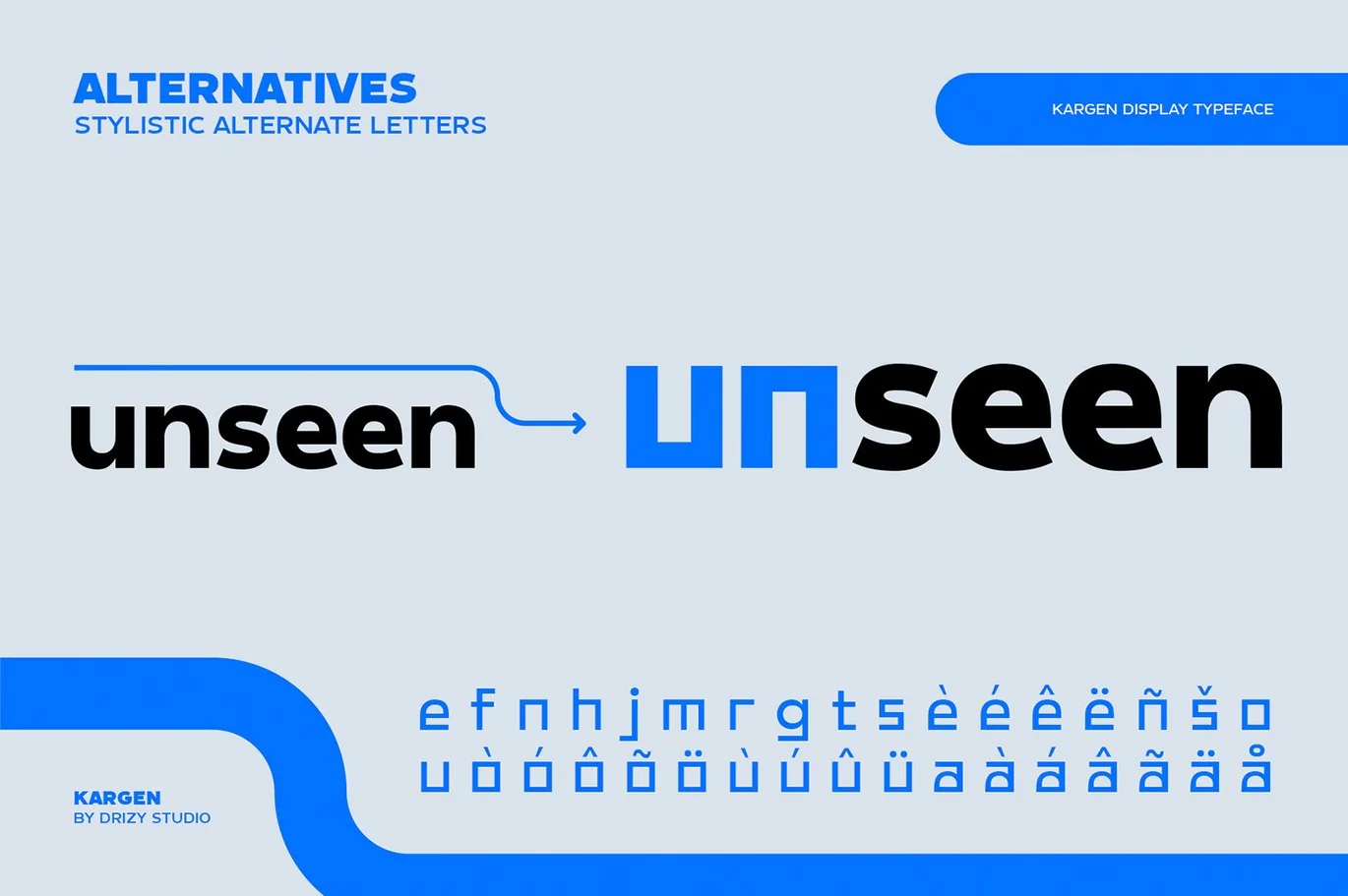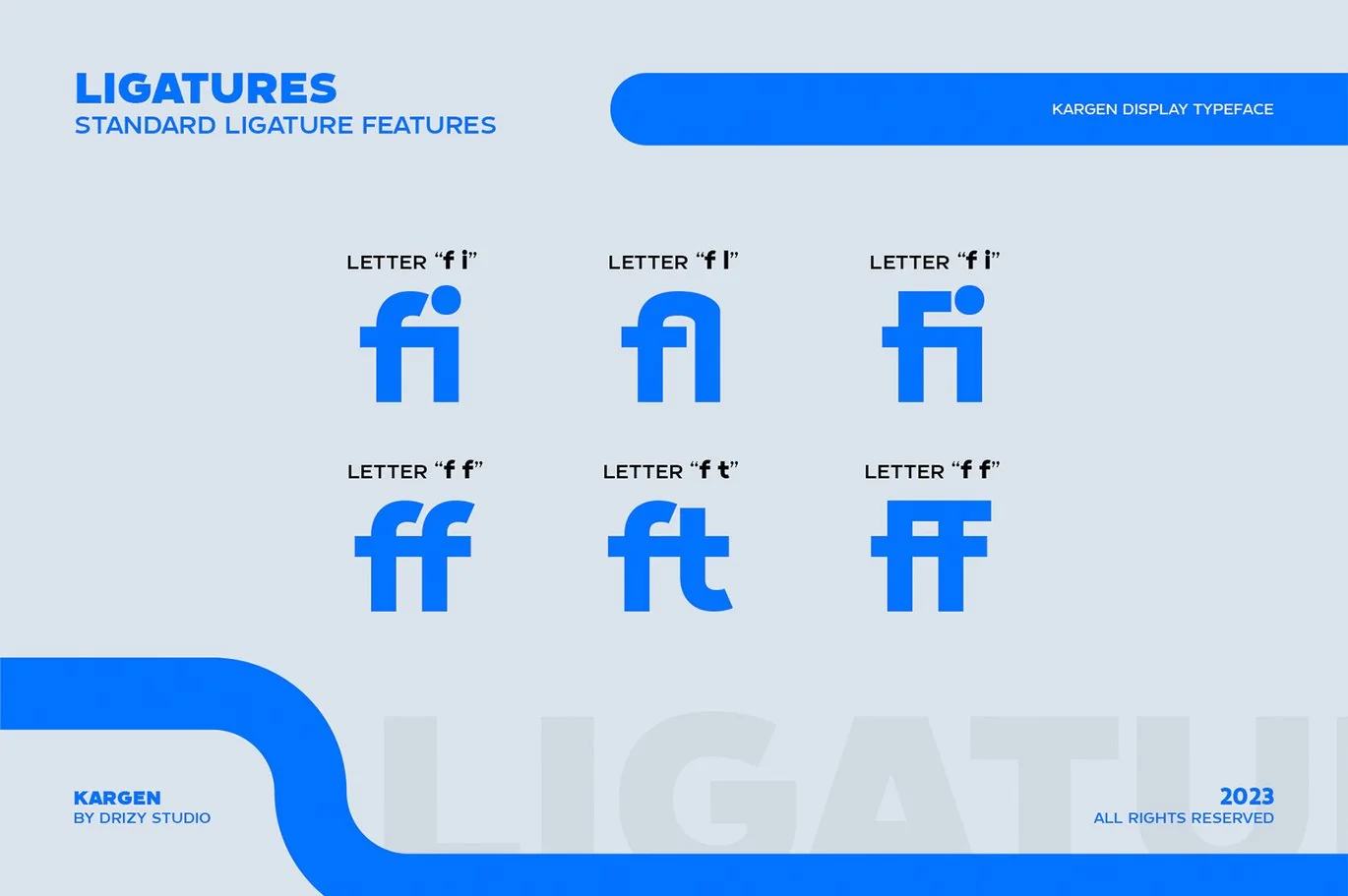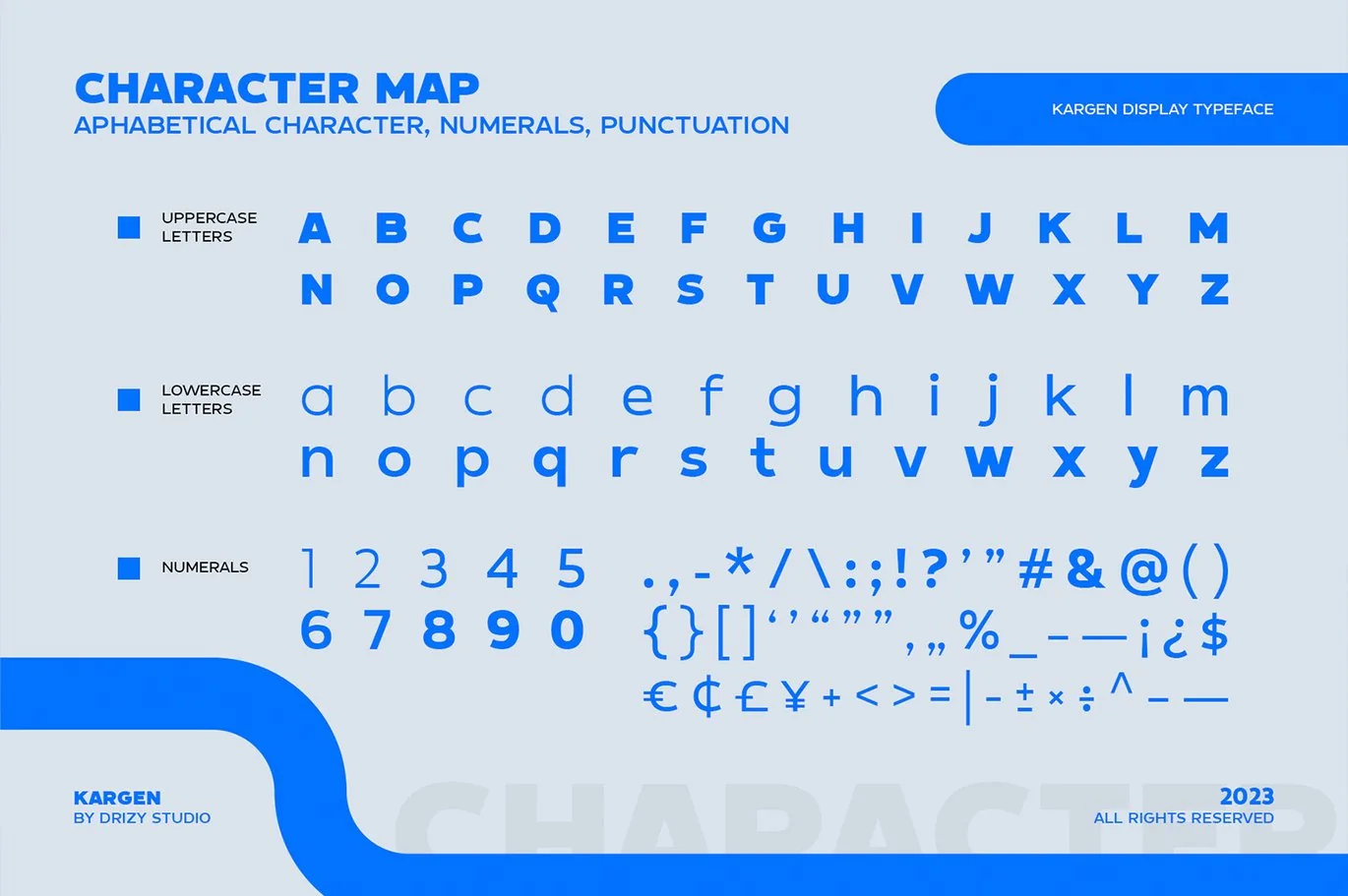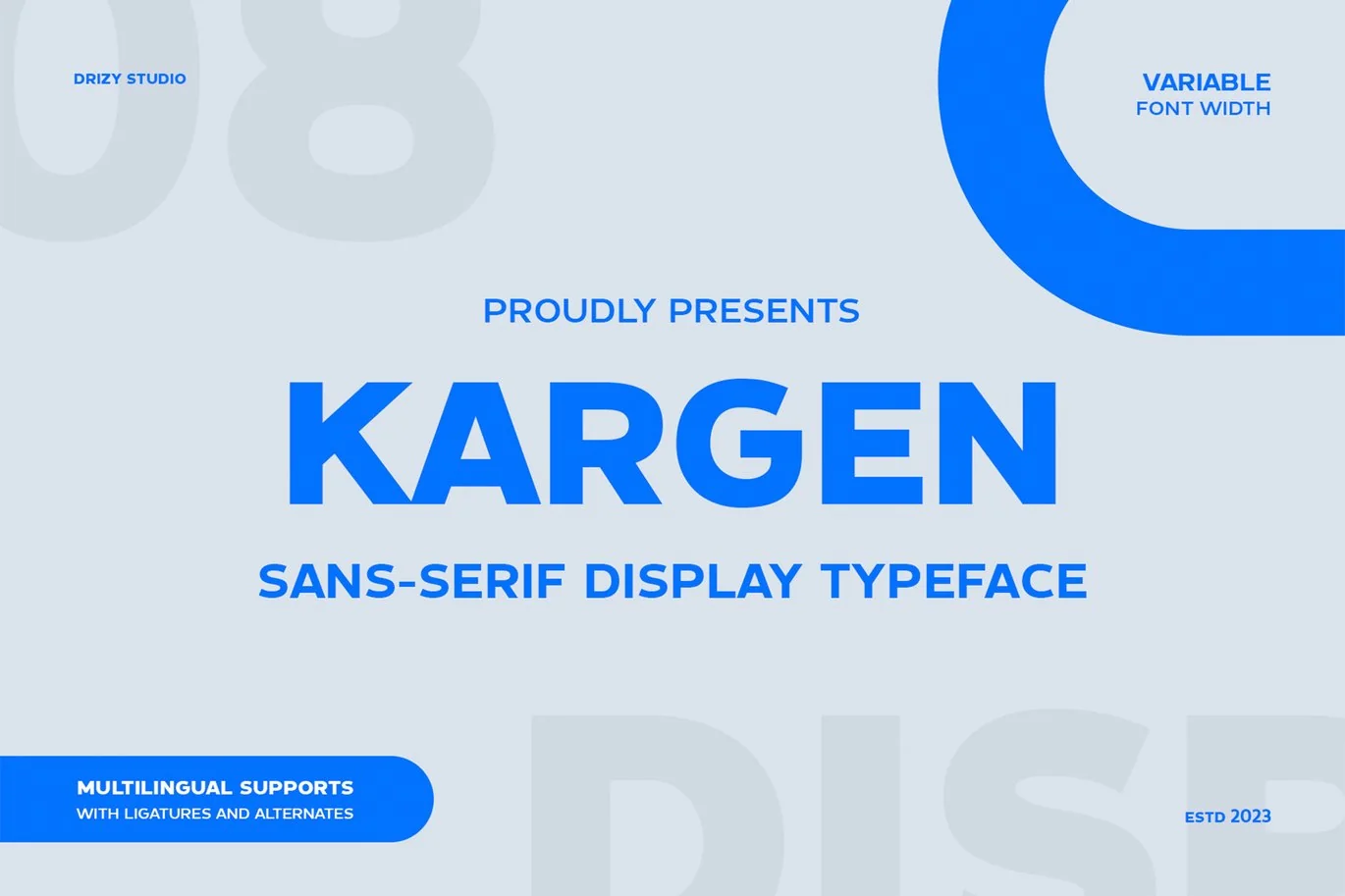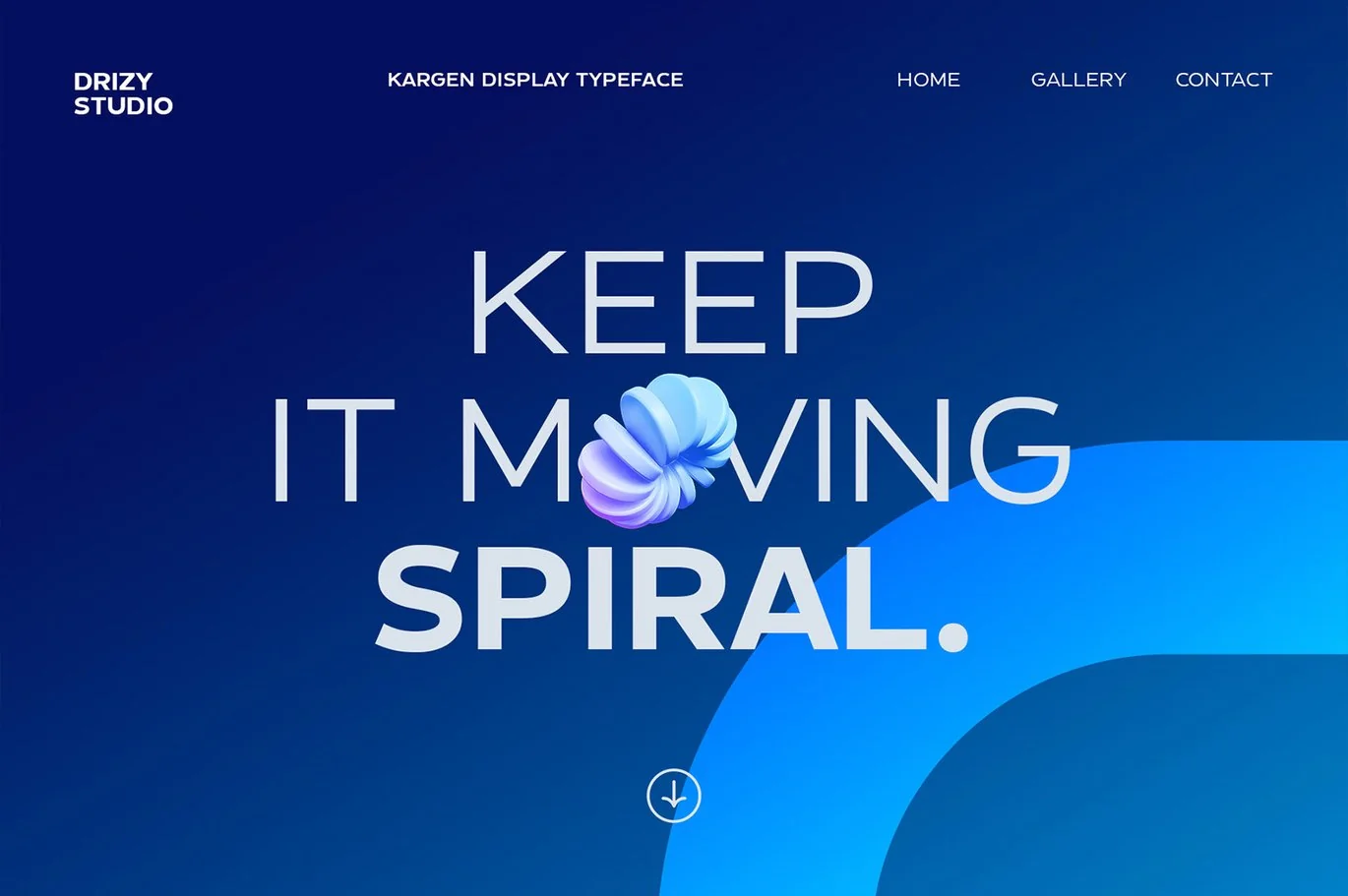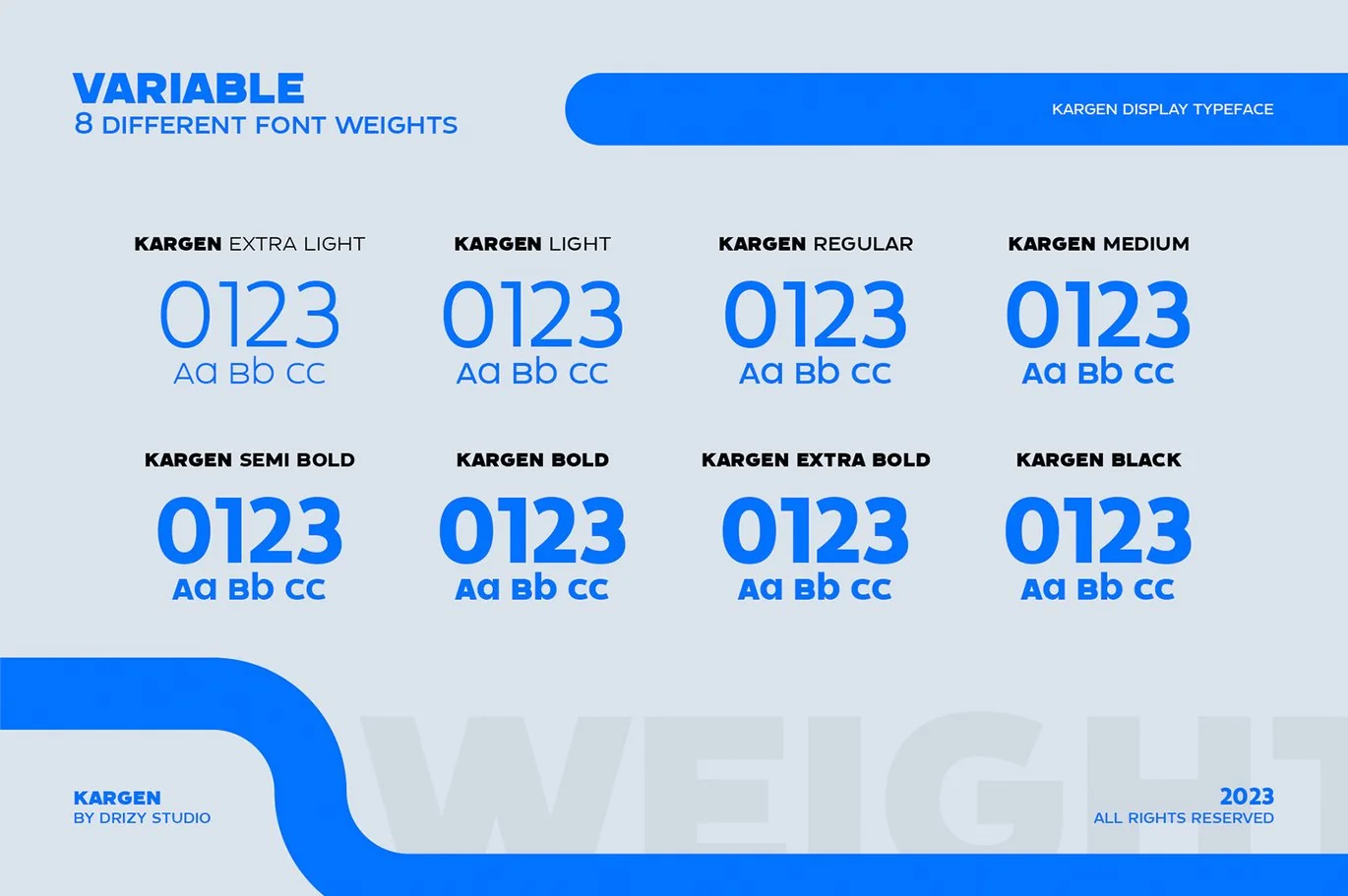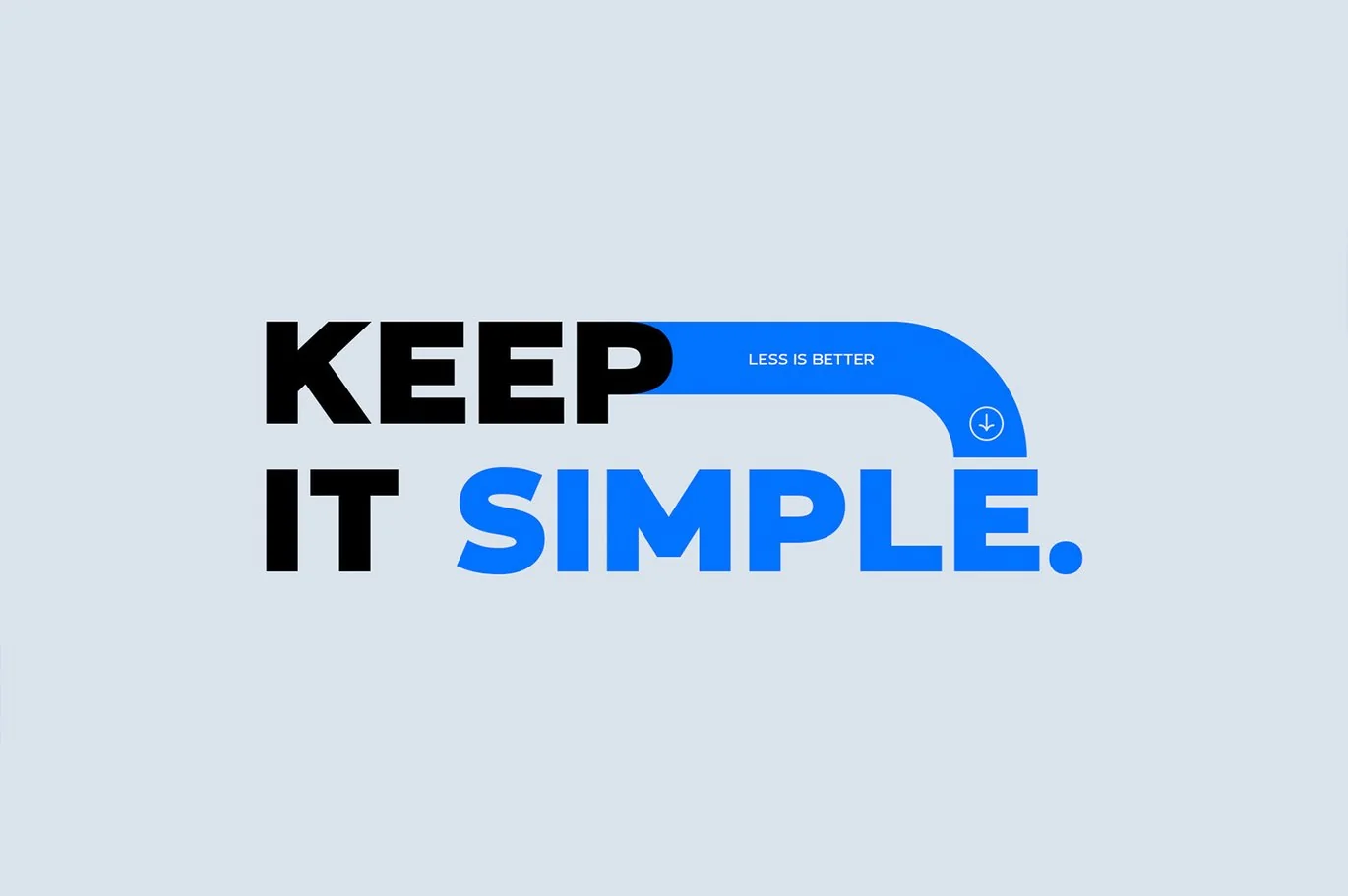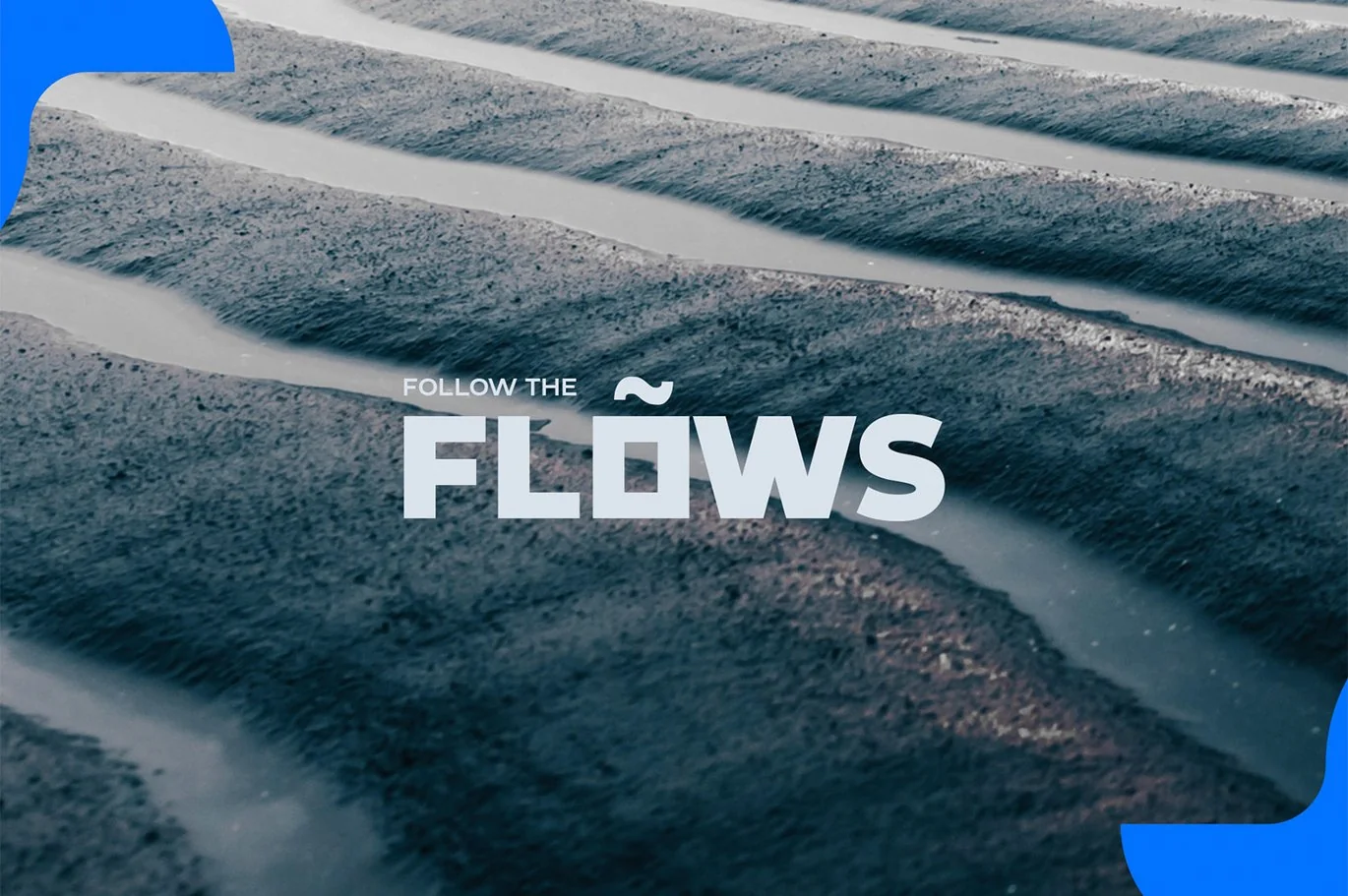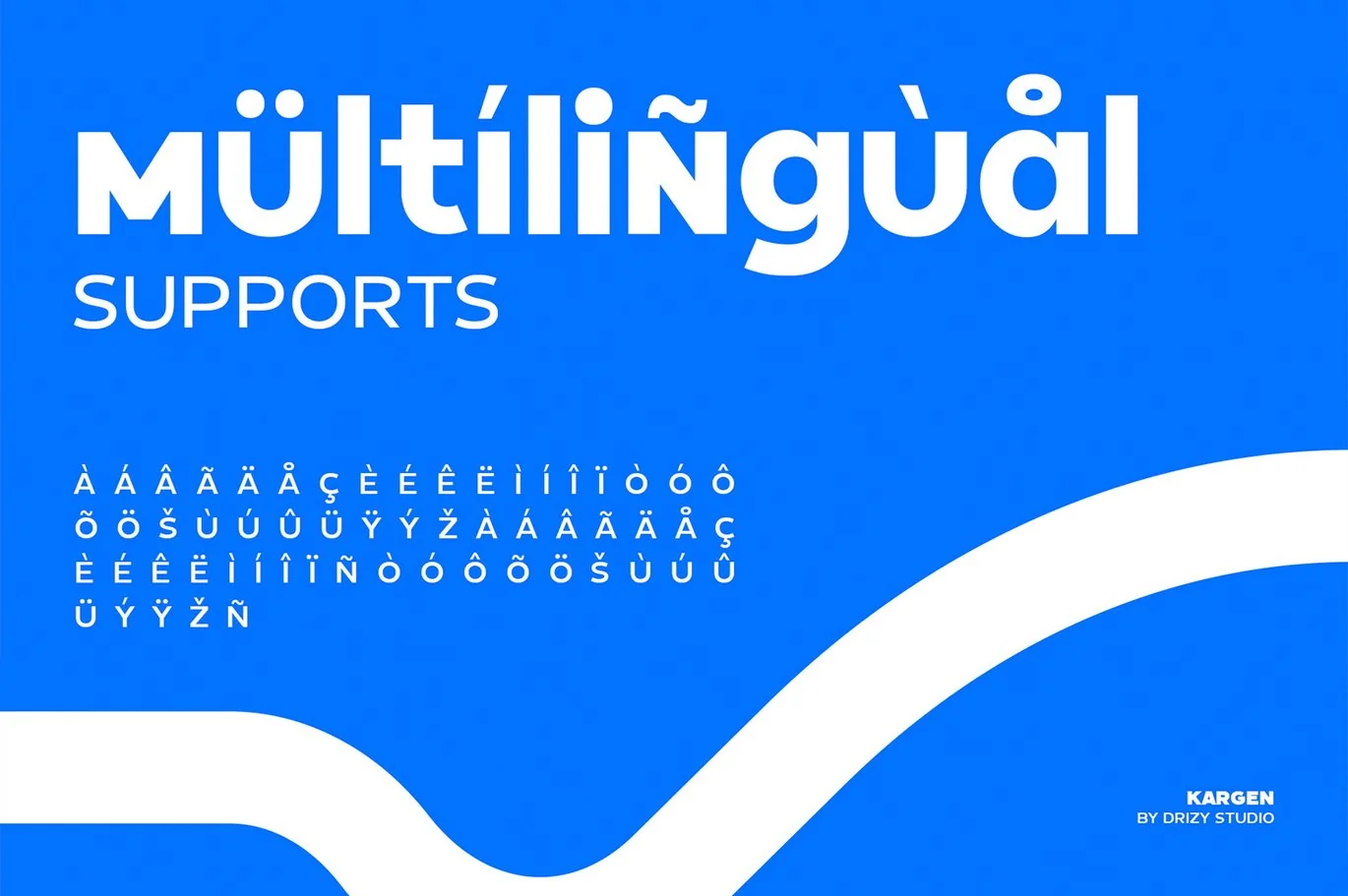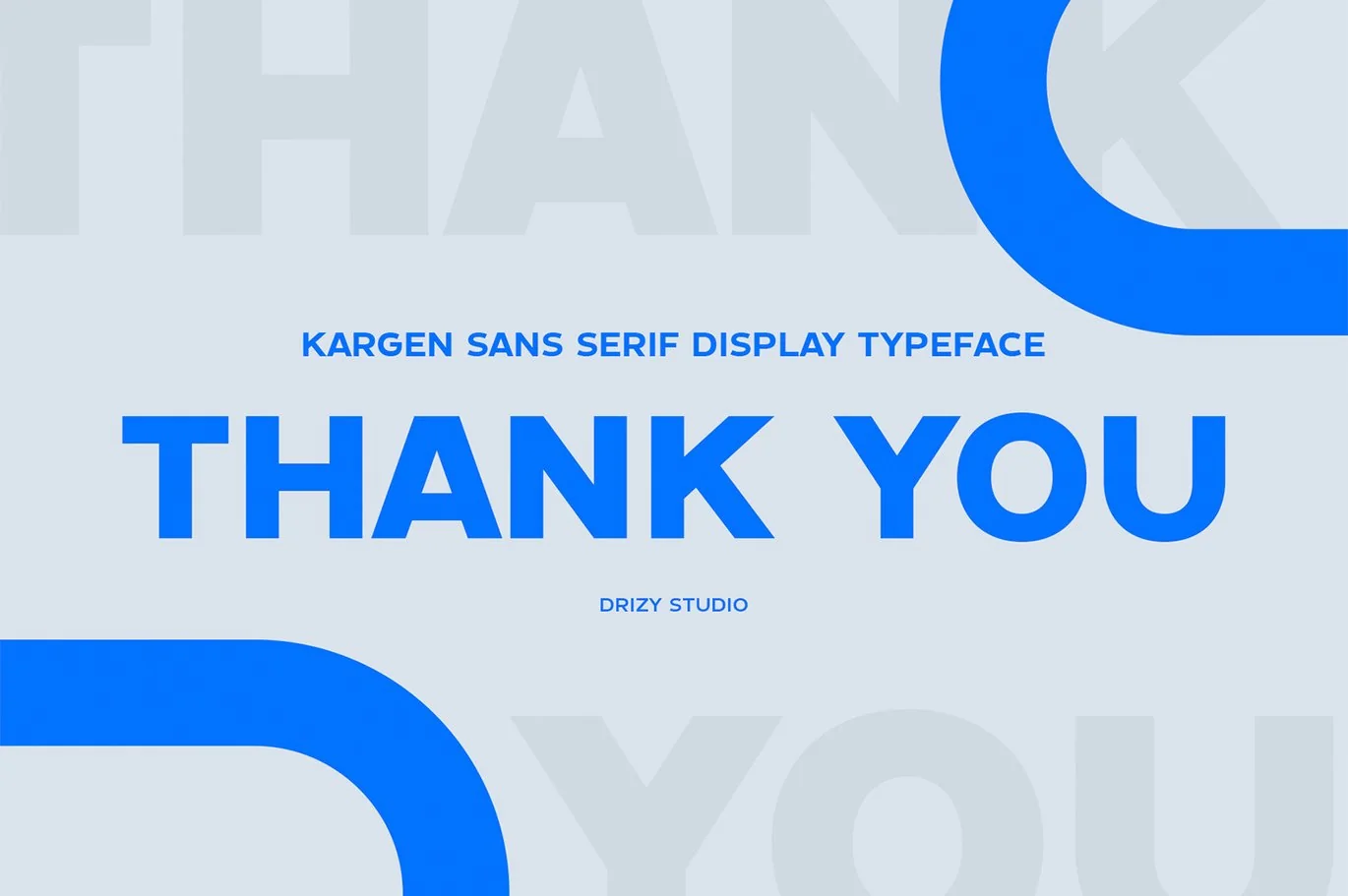
Kargen – Sans Serif Display Typeface
Introducing Kargen, a contemporary Sans Serif Display Typeface that seamlessly combines modern aesthetics with timeless elegance. With its clean lines, sharp edges, and versatile character set, Kargen is a font designed to make your creative projects truly stand out.
Kargen features:
Uppercase & Lowercase
Variable Fonts
Alternates
Ligatures
Elevate and explore the design possibilities with this display font!